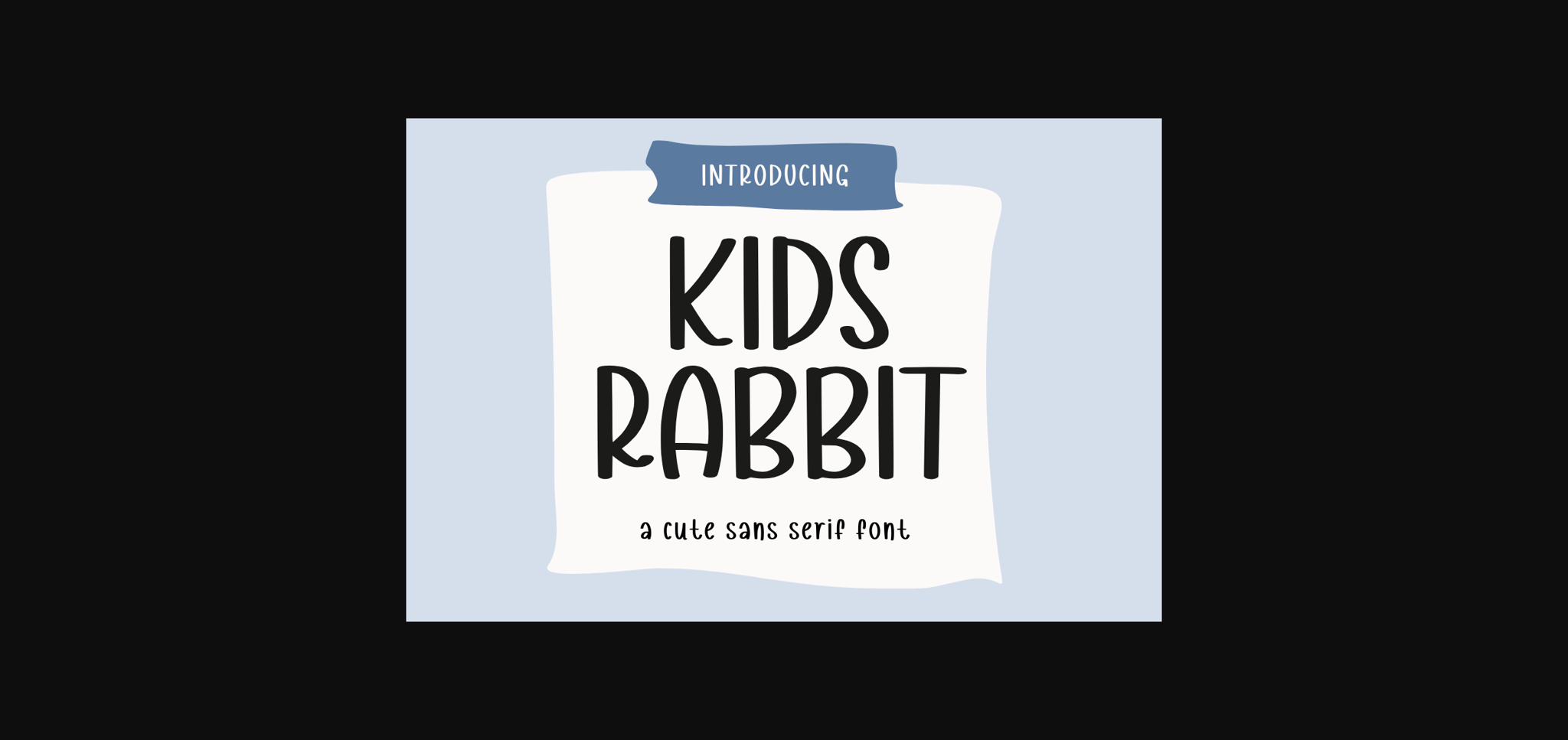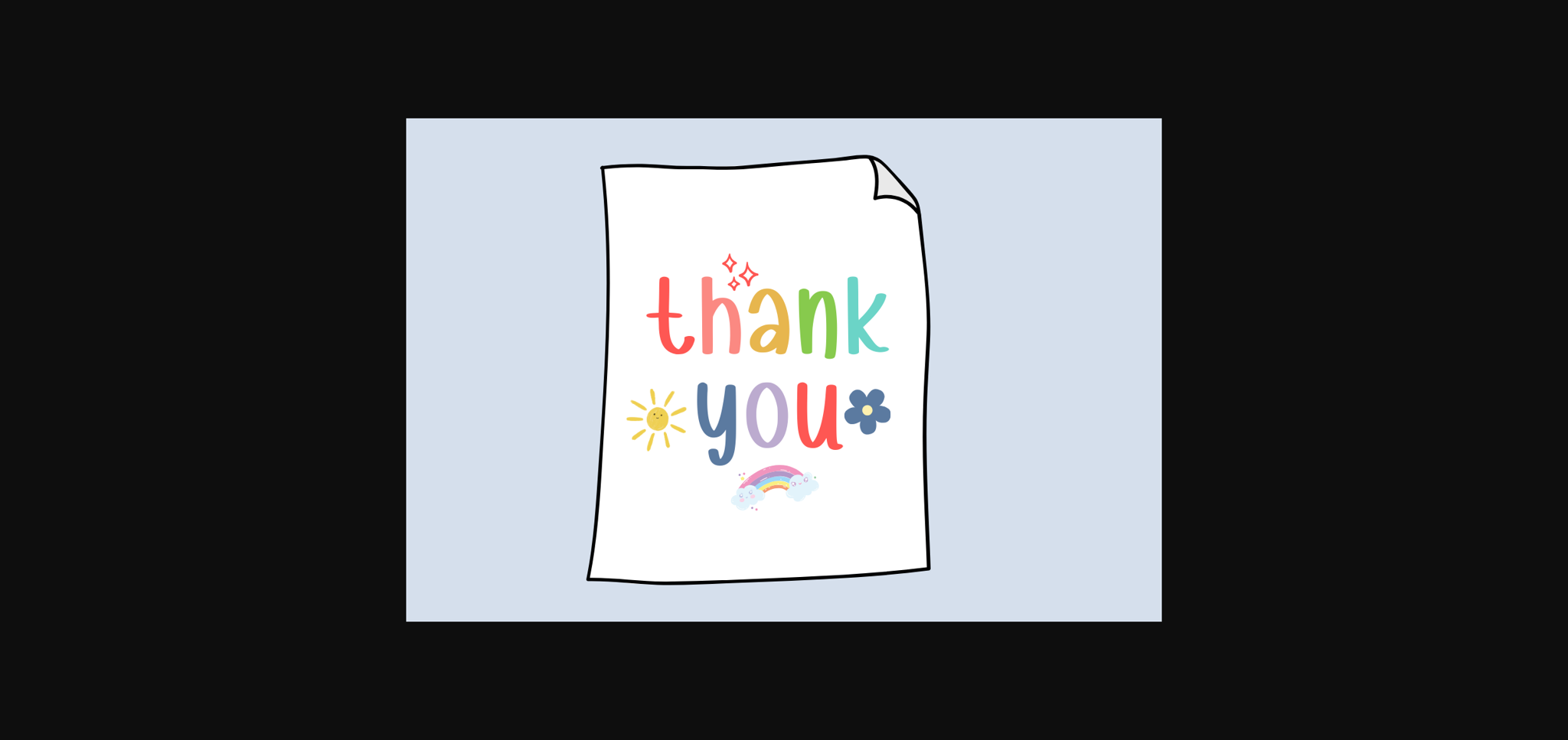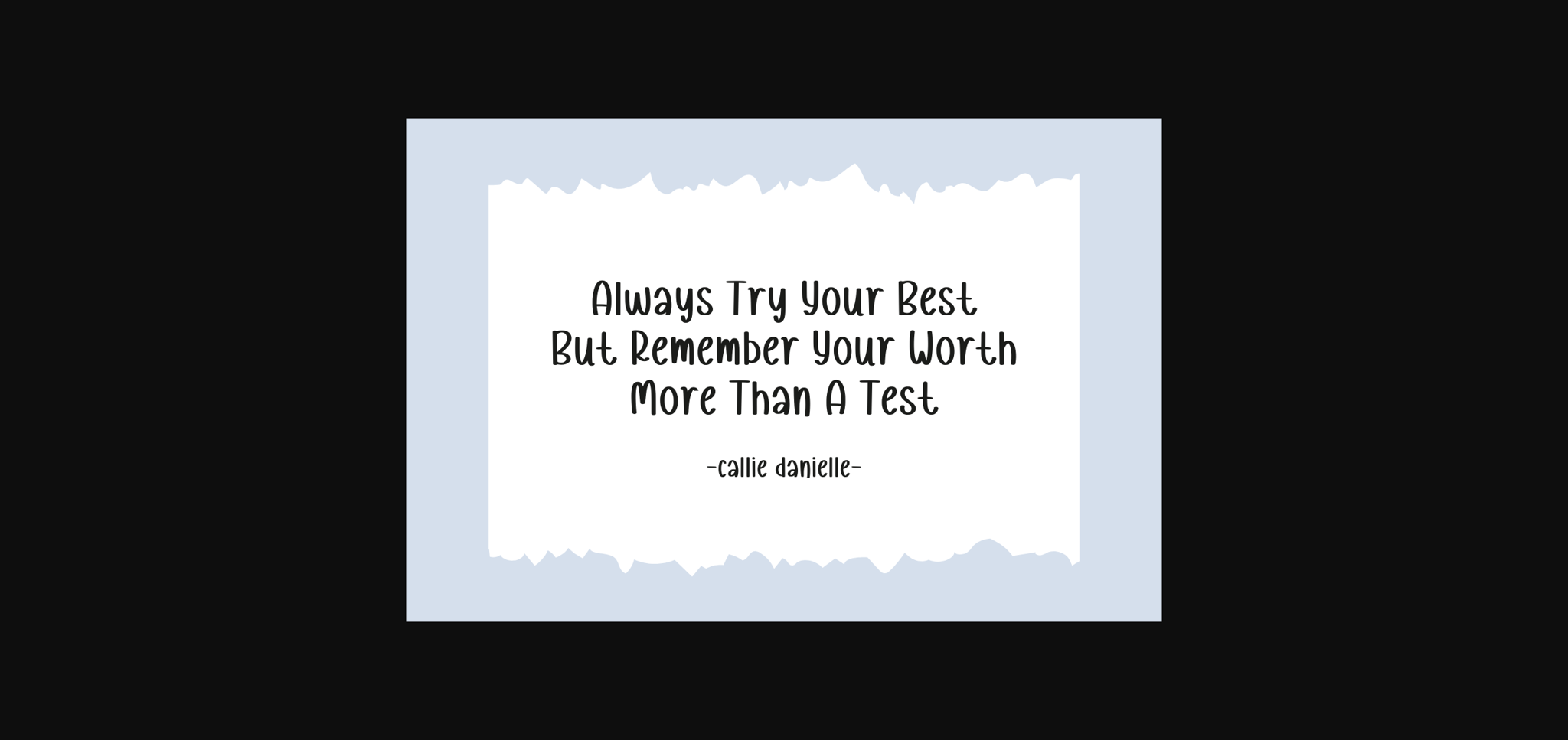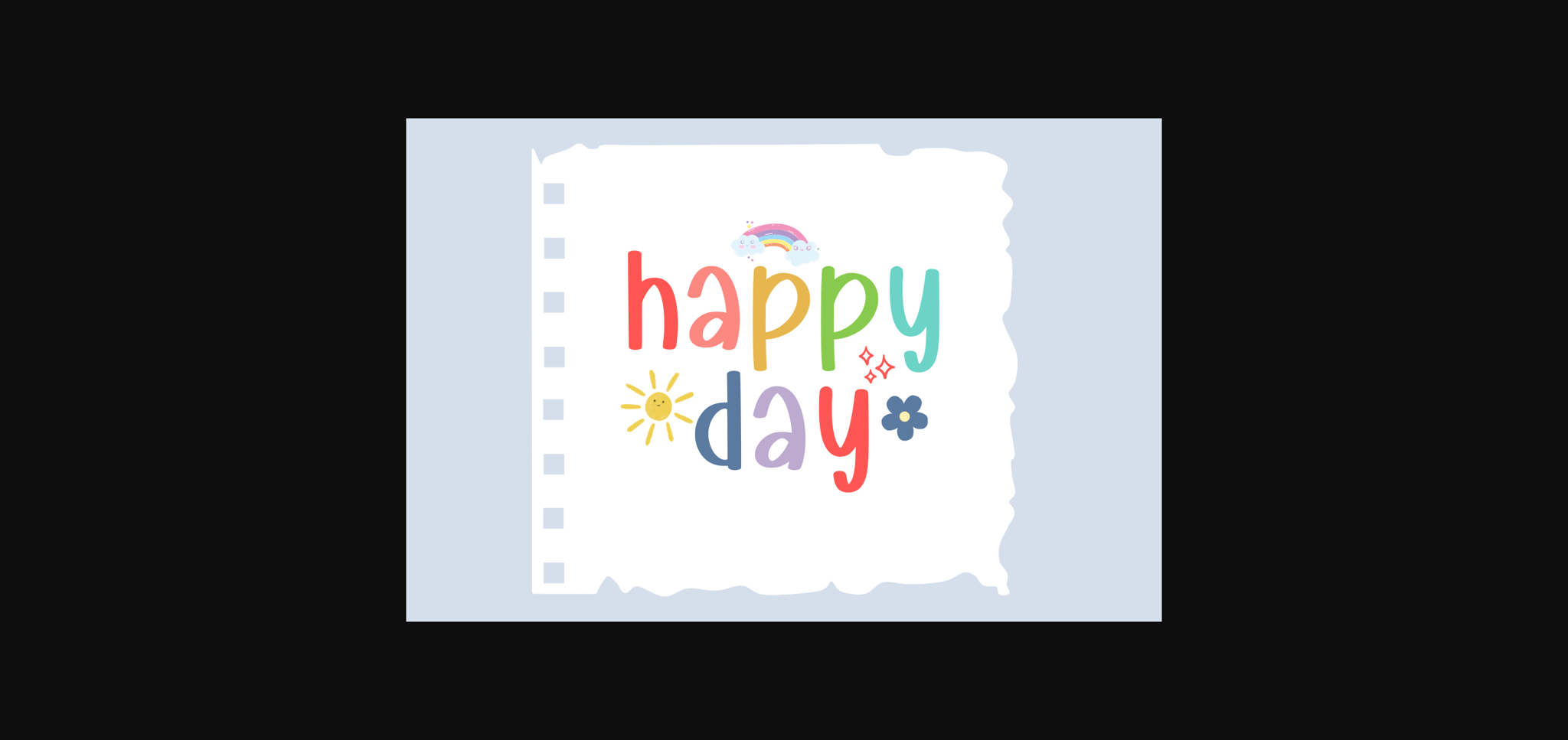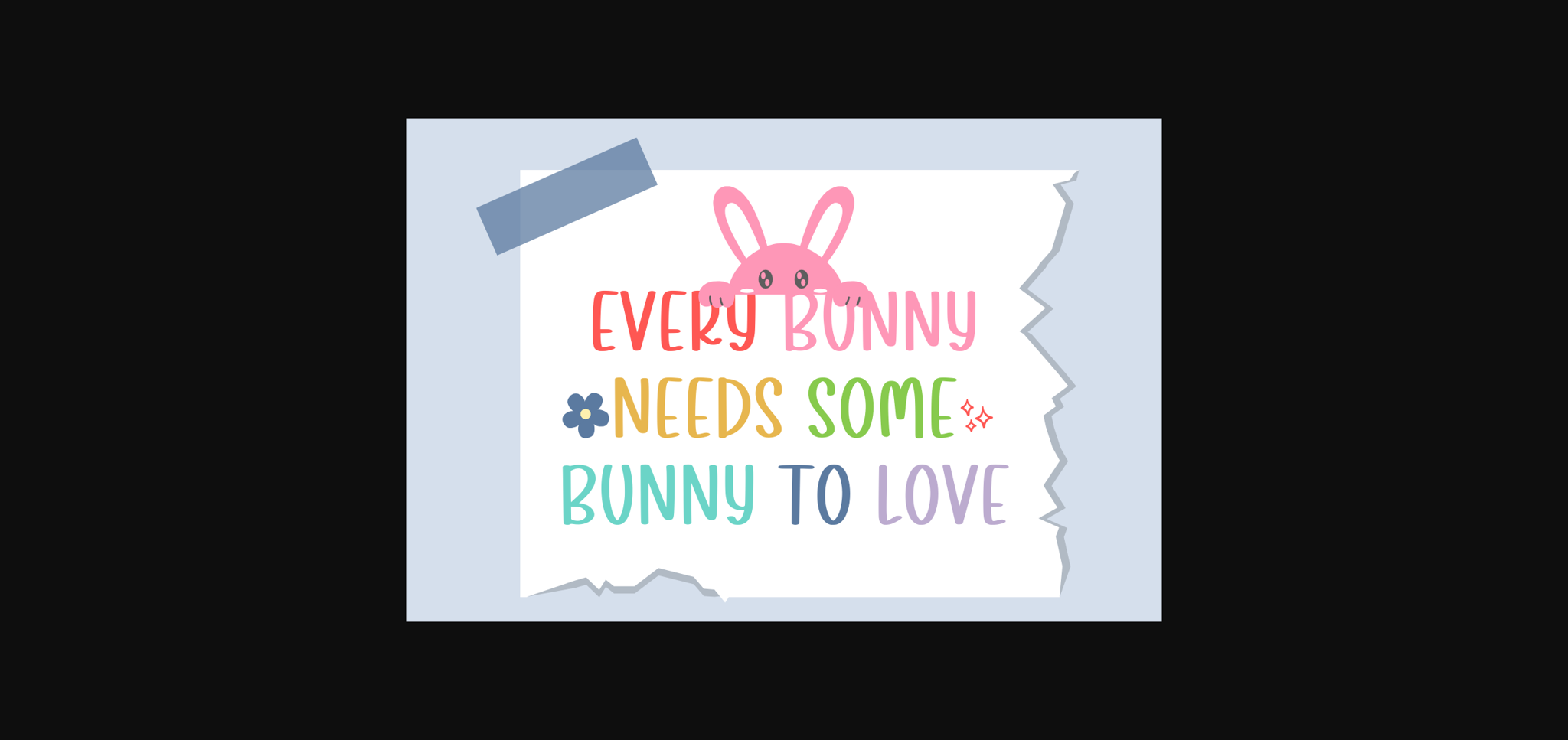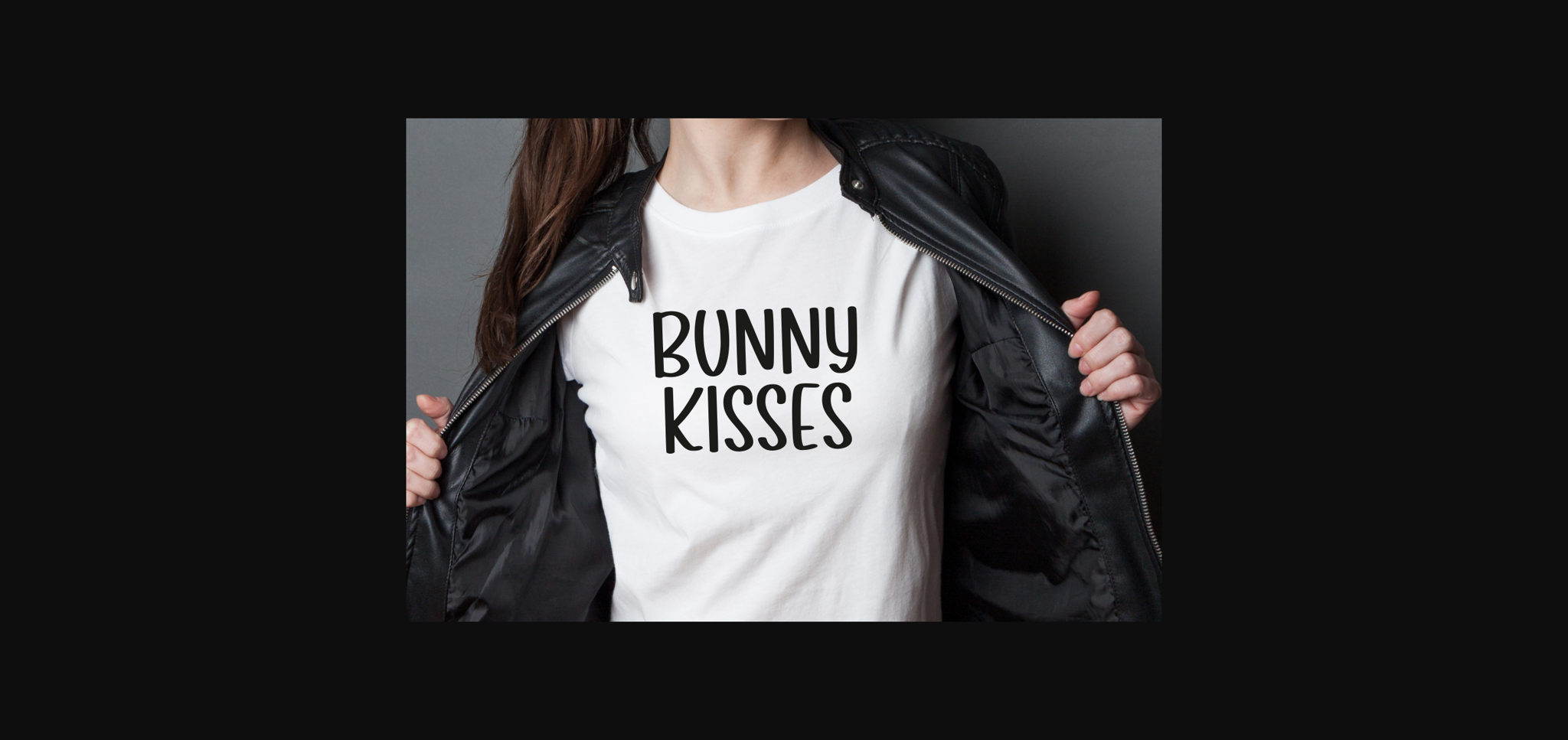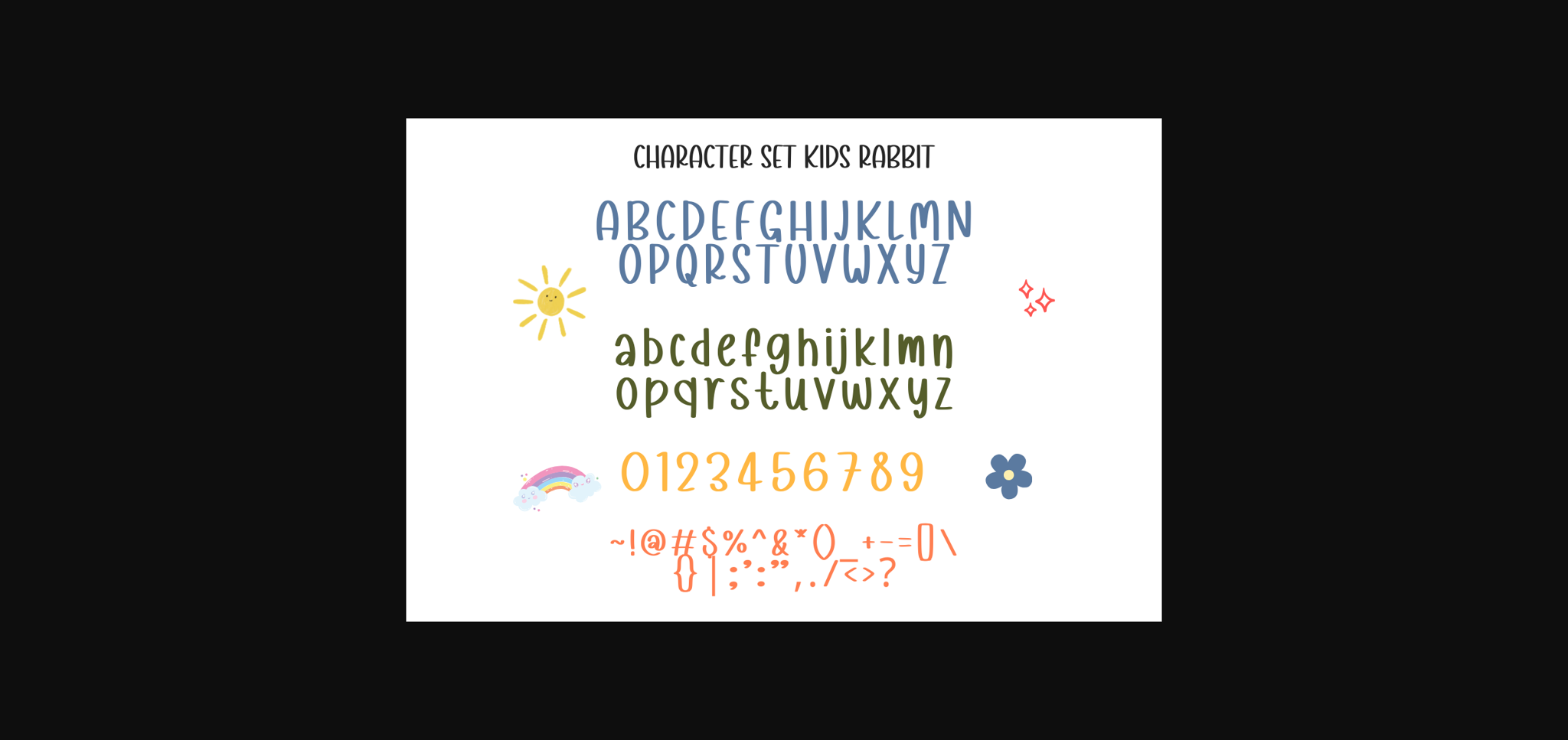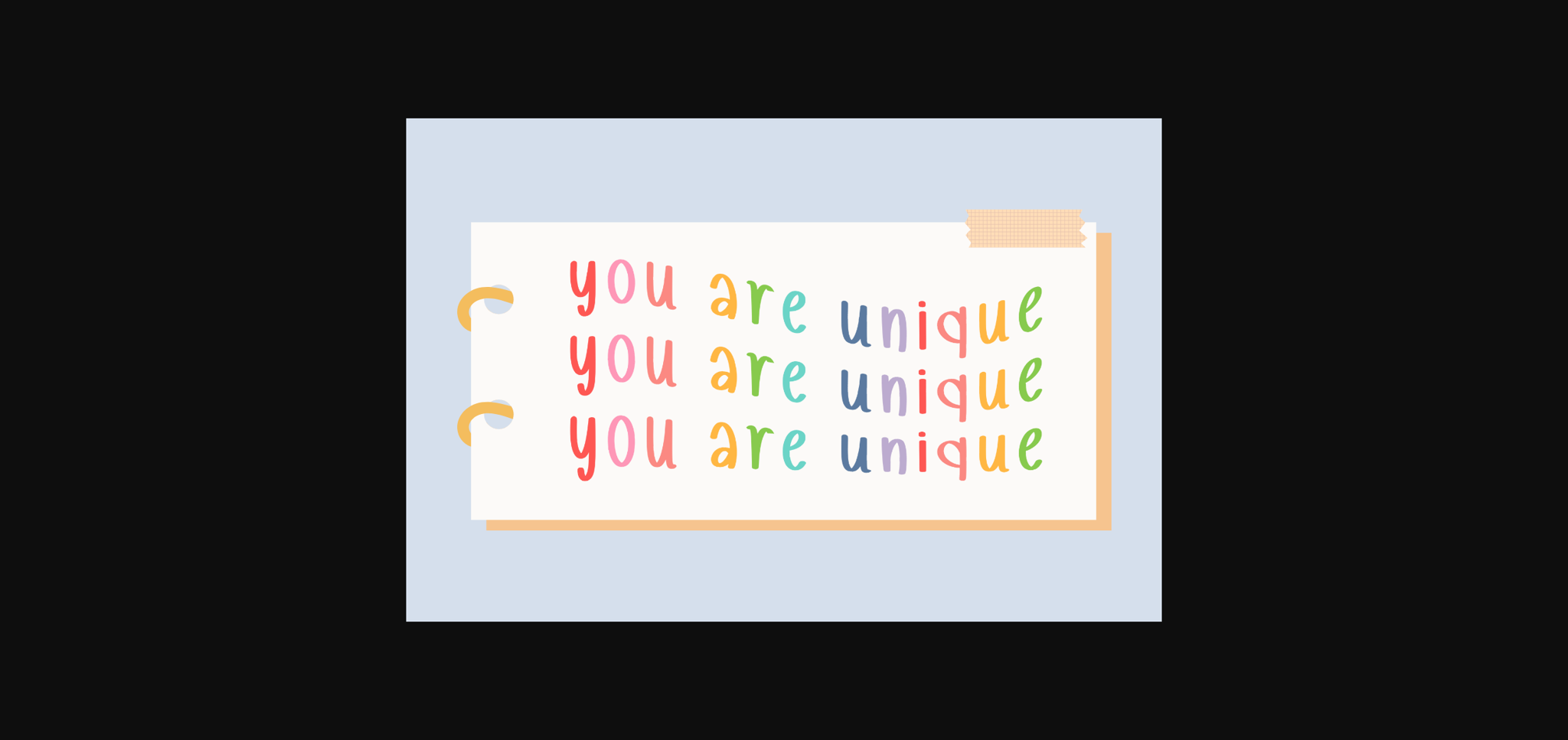
Kids Rabbit Font
About Kids Rabbit Font
Kids Rabbit, an irresistibly cute and lively sans serif font. Bubbling with personality, it’s a delightful choice for crafting mood-lifting quotes or personal notes. With a playful appeal, it seamlessly lends itself well to stylish t-shirts, heart-warming mugs, and adorable children’s apparel. Enhancing your branding with a touch of youthful flair or spicing up your greetings cards and birthday invites has never been easier. Kids Rabbit shines brilliantly in packaging, helping your products to stand apart from the crowd. A versatile choice, it resonates with joy and levity, adding smile-inducing charm to various projects. Dive into the enchanting world of Kids Rabbit, where creativity meets fun.